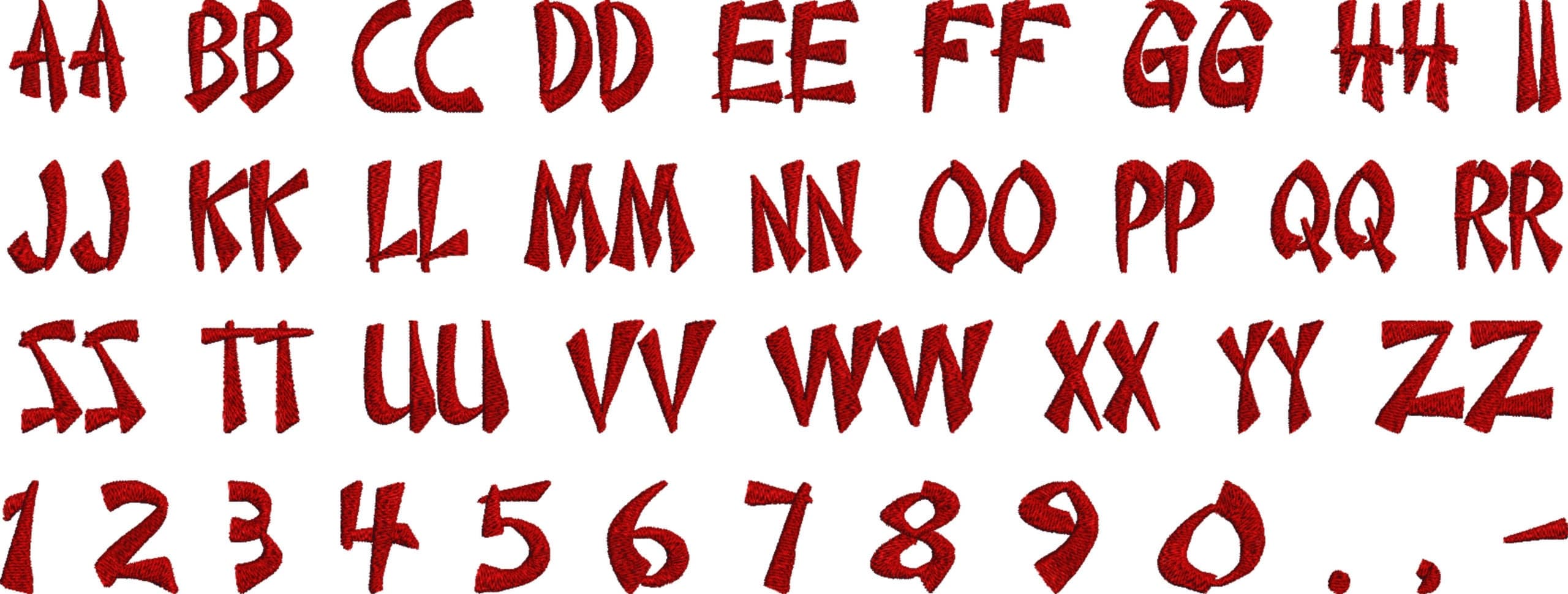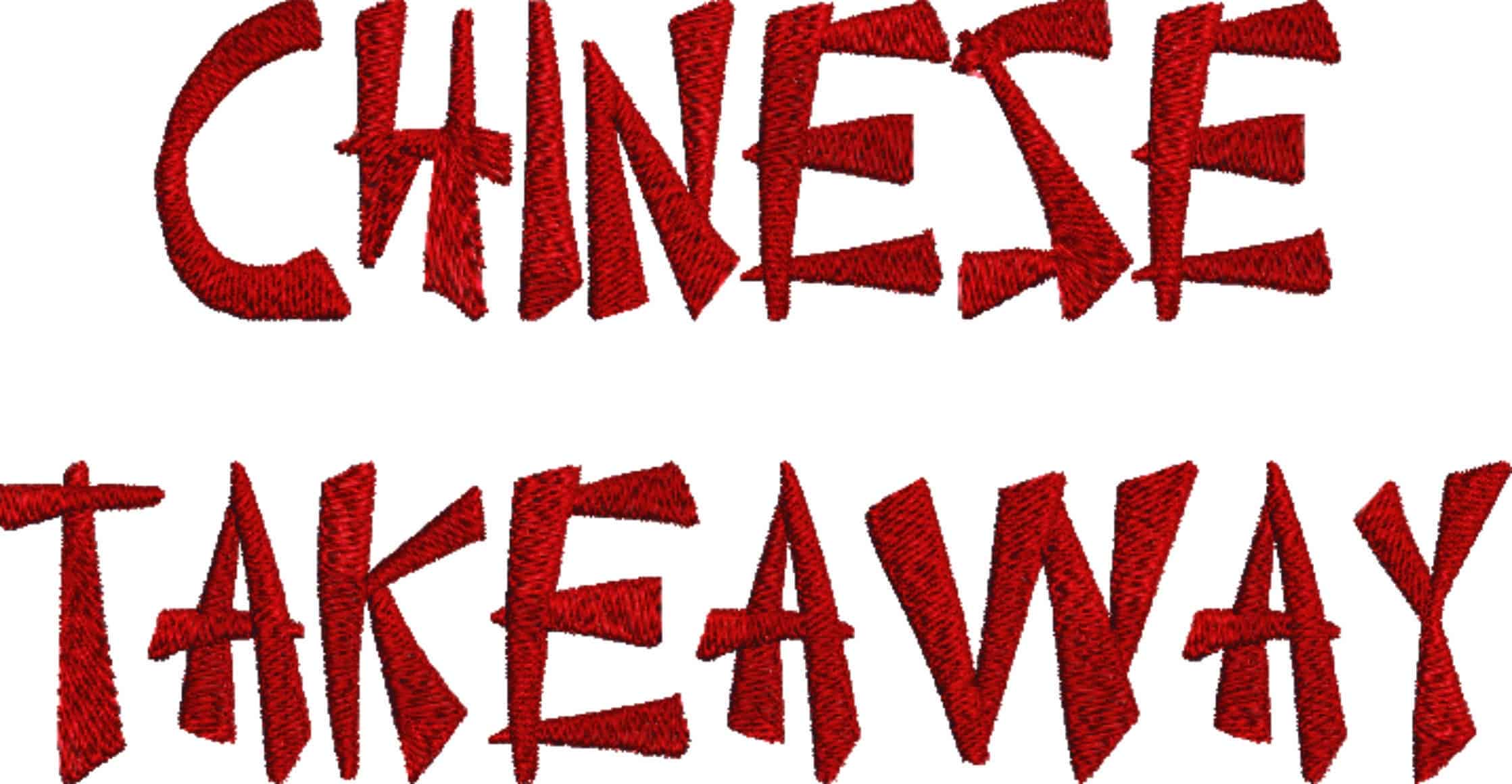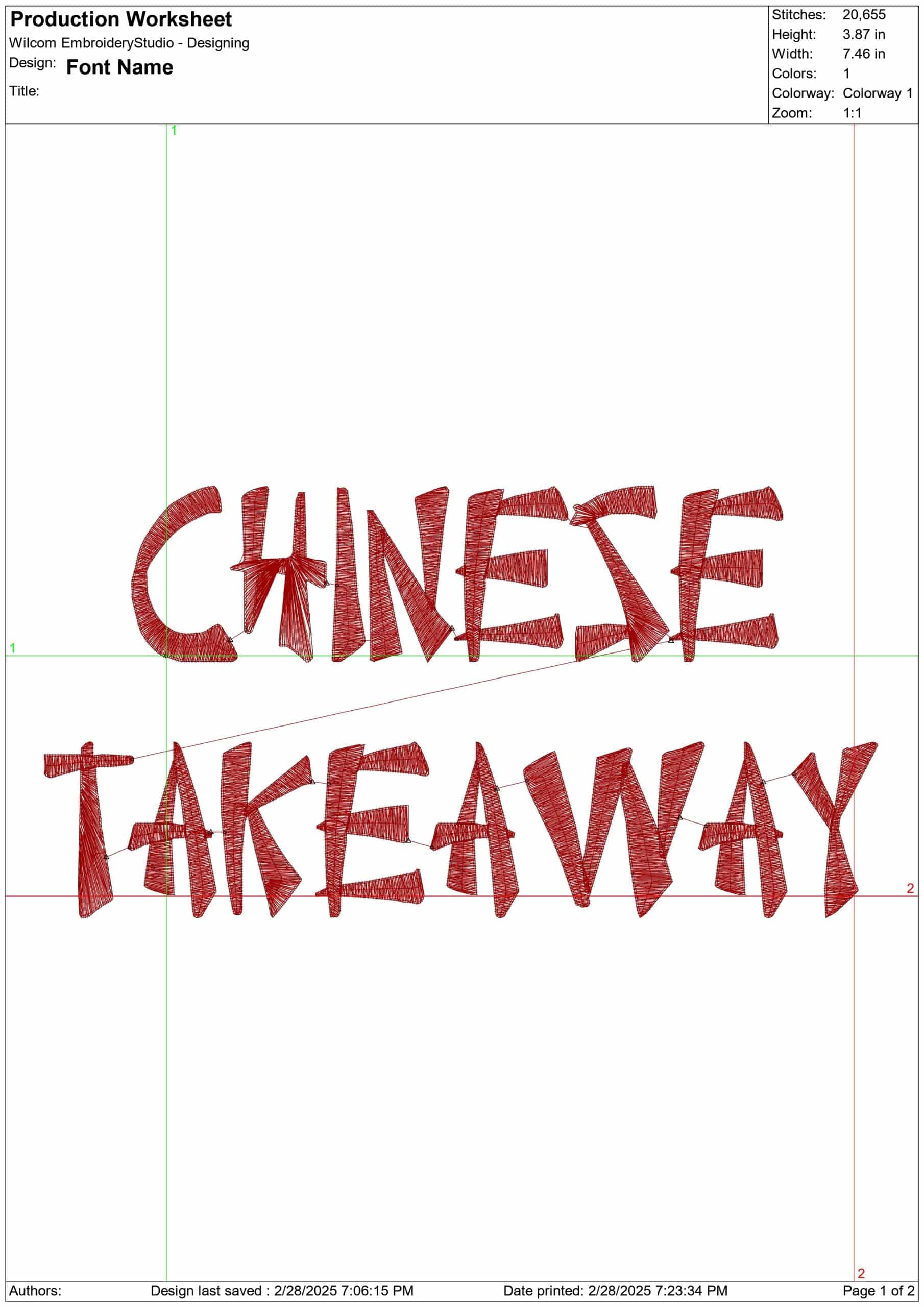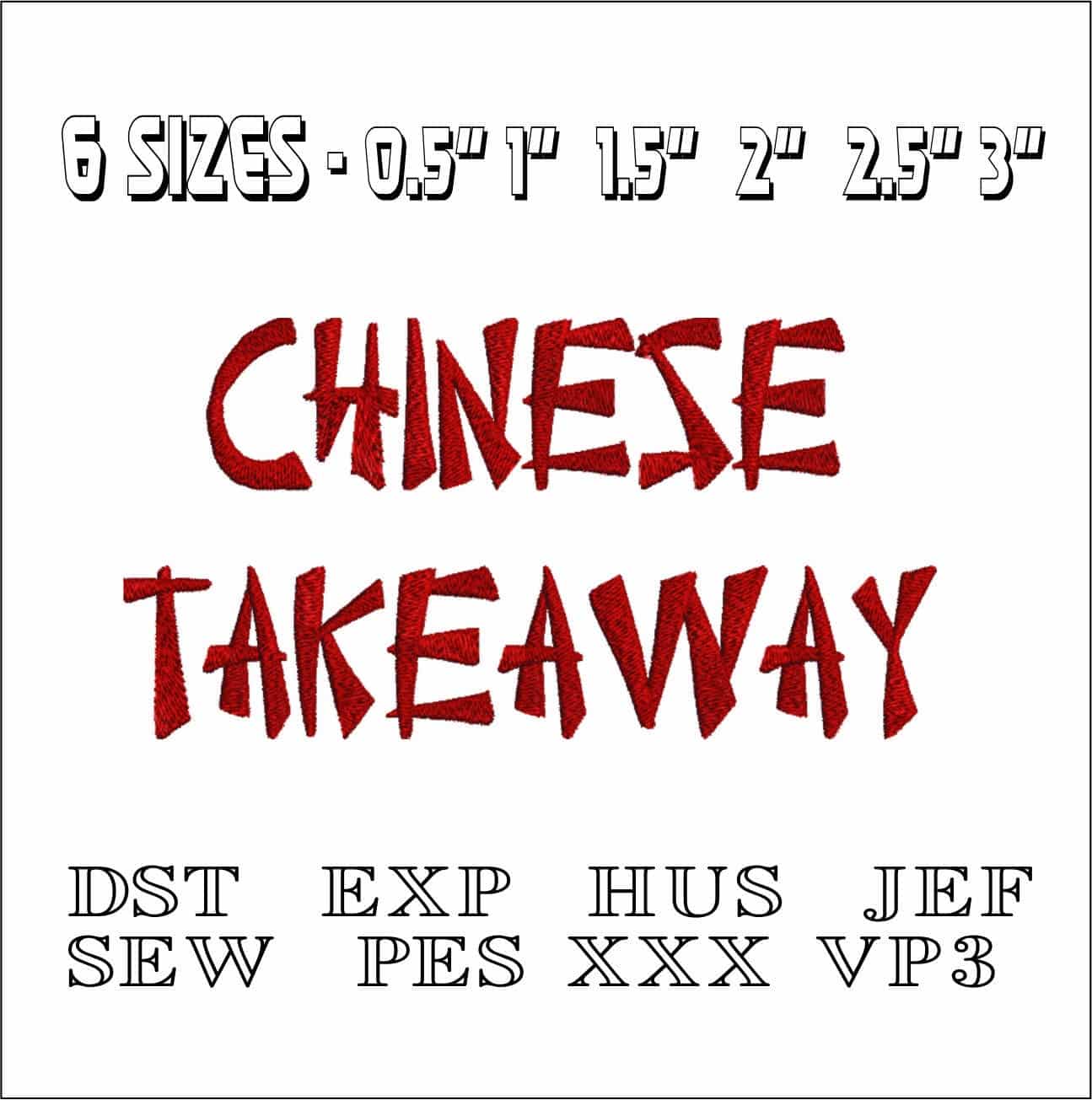
Chinese Takeaway Font Embroidery Font Set - 0.5" 1" 1.5" 2" 2.5" 3" - Machine Embroidery Alphabet Font - instant download
Chinese Takeaway Font Embroidery Font Set - 0.5" 1" 1.5" 2" 2.5" 3", Individual Alphabet Font - instant download
This is such a great alphabet for names and sayings! Beautiful and classy! Also available in larger sizes: